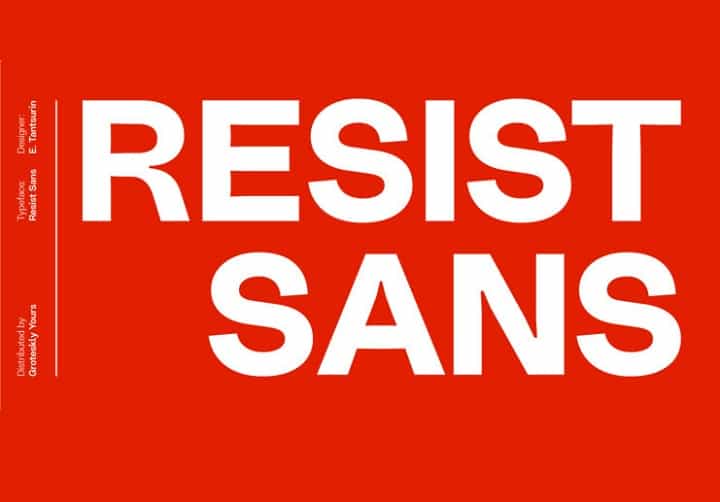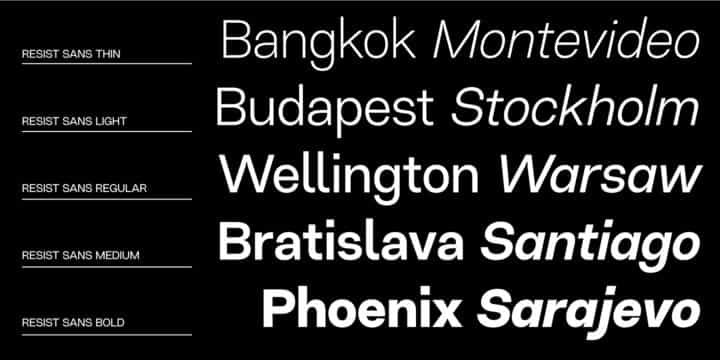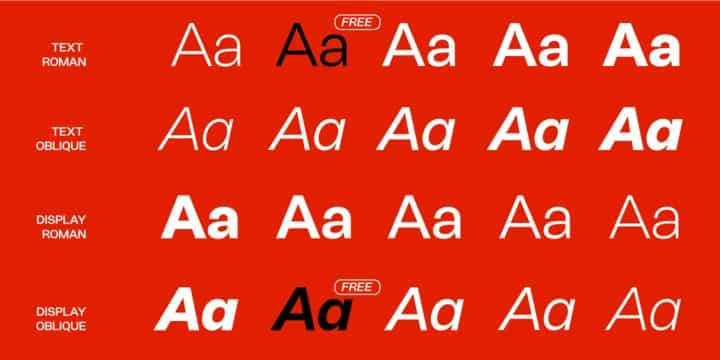
Resist is a hard and general sans-serif type duo which can cope with the hardest tasks without problems. The design is not only stylish but also has an intuitive user interface which are the two features that will make it a legend.